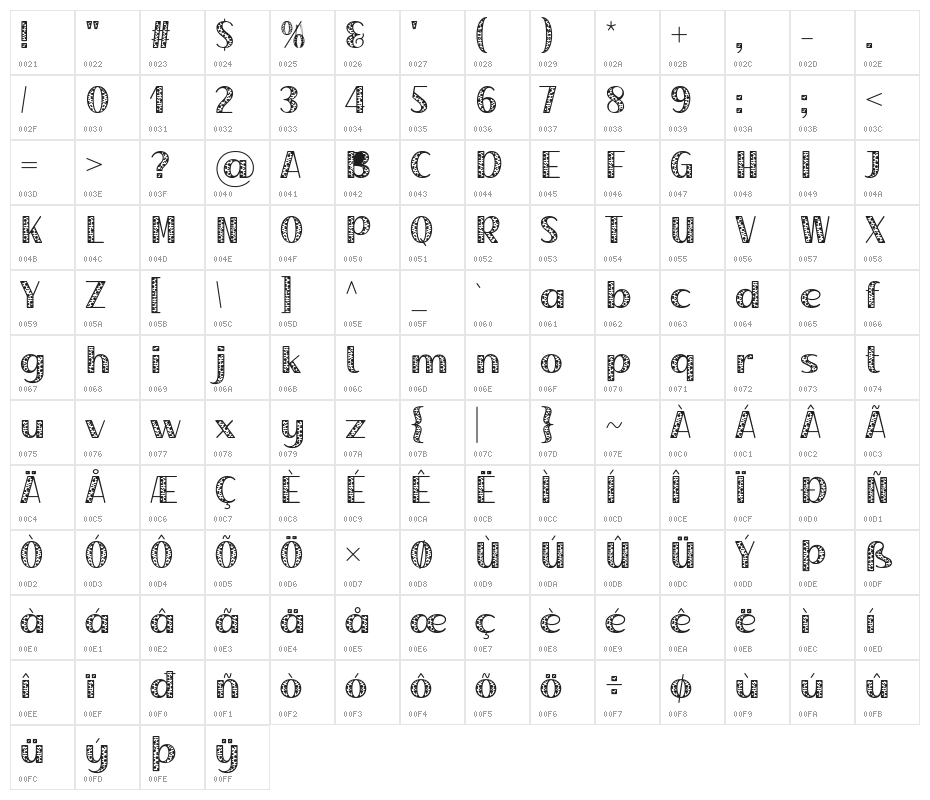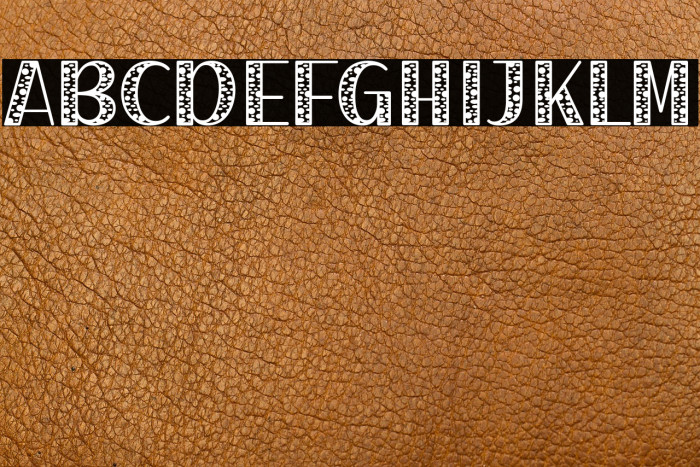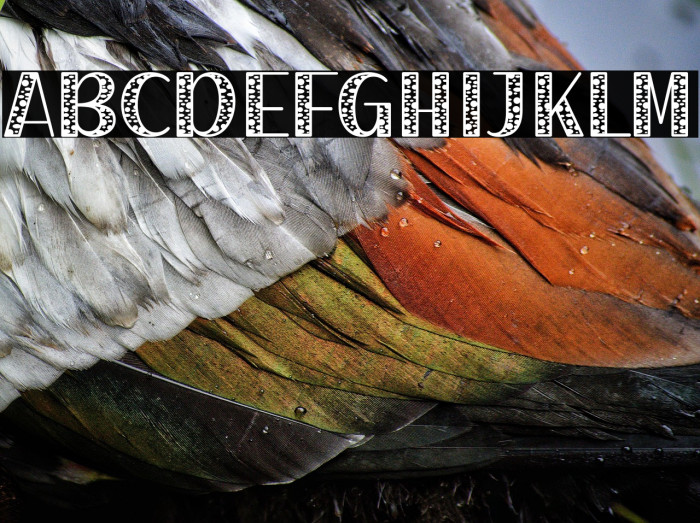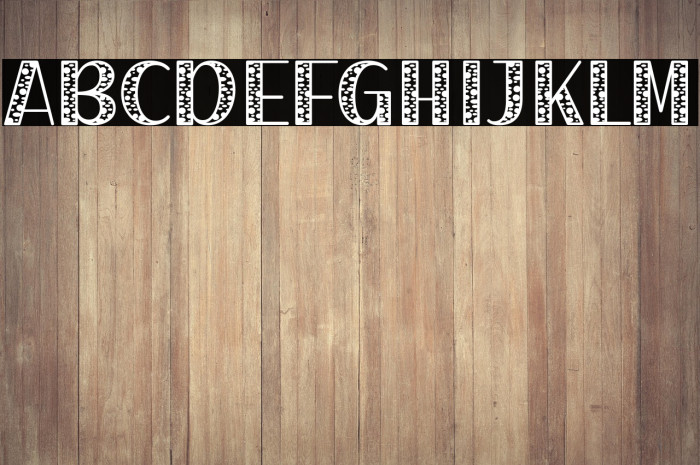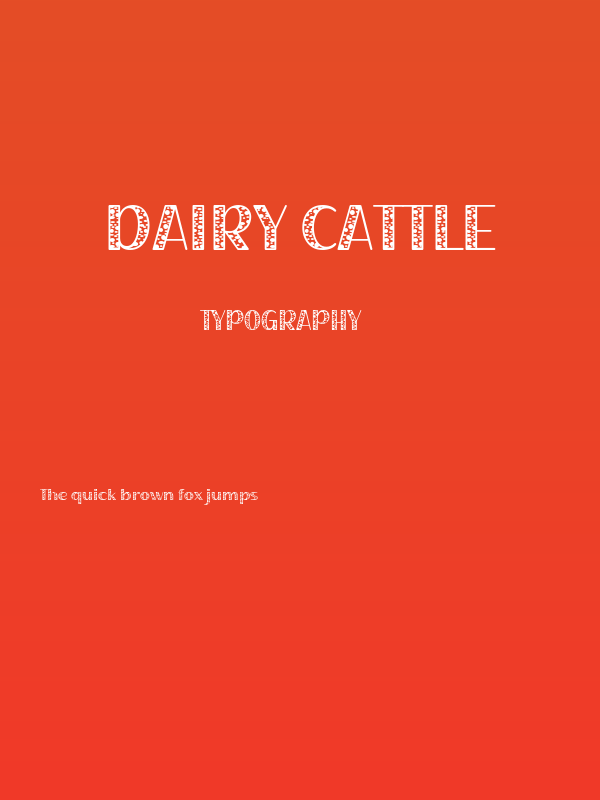
Dairy Cattle Font
Dairy Cattle Description
This font features a playful and decorative style, characterized by its unique pattern resembling cow spots within each letter. The uppercase and lowercase letters maintain a consistent design, with a bold outline that enhances readability. The numbers and special characters follow the same thematic pattern, making the font cohesive and visually engaging. Its whimsical nature makes it ideal for projects that require a fun and eye-catching typeface. The font's distinct style is perfect for adding a touch of creativity and uniqueness to any design.
| Proposed Projects | Ideal for children's books, playful branding, themed party invitations, and creative posters. |